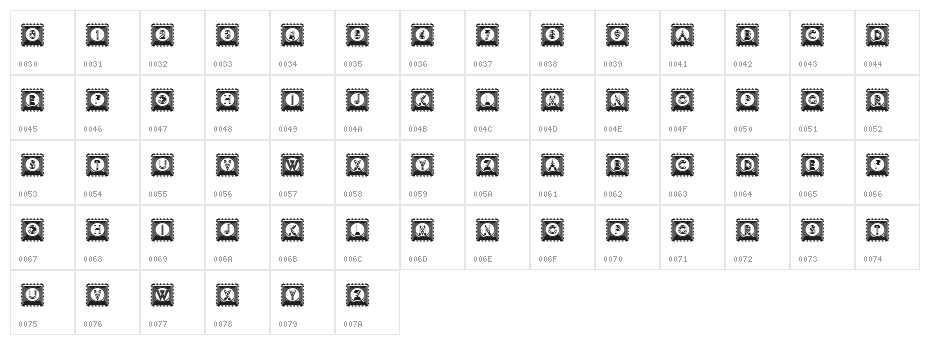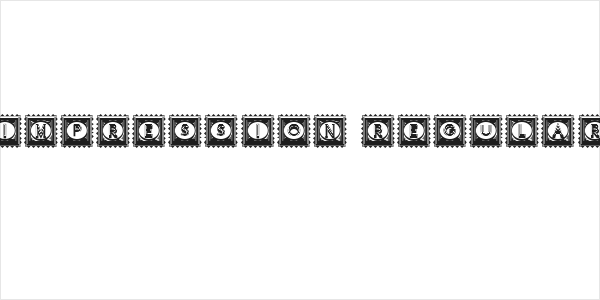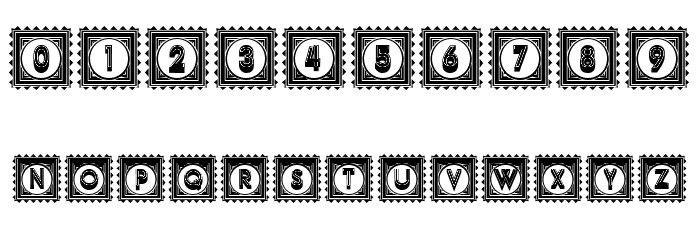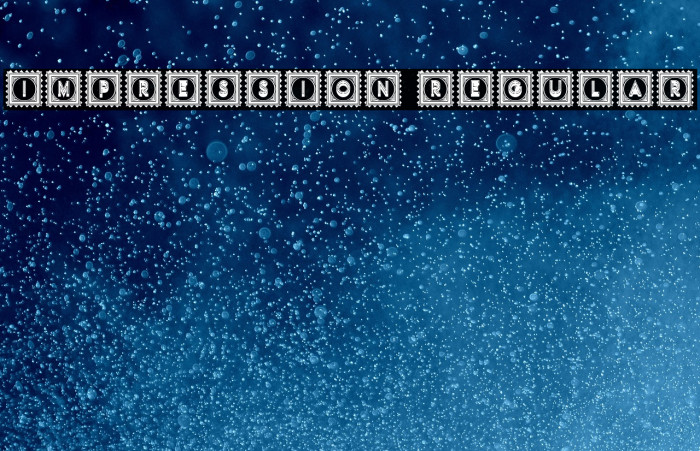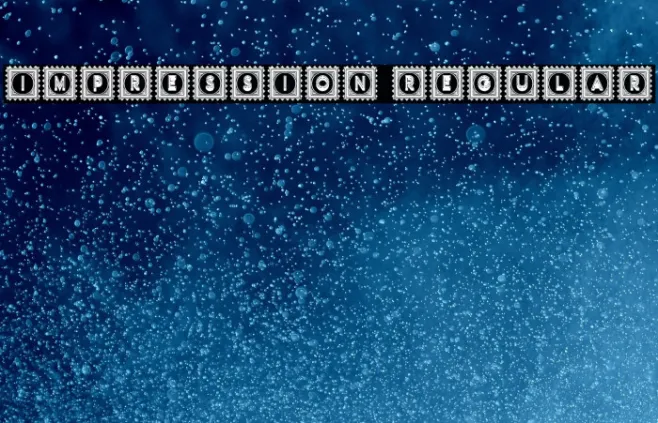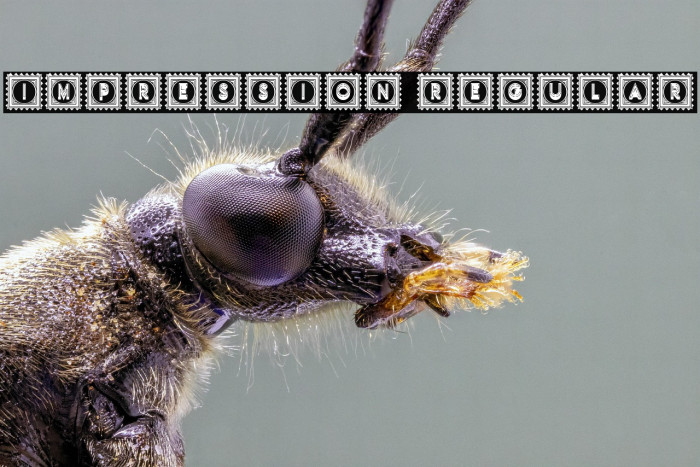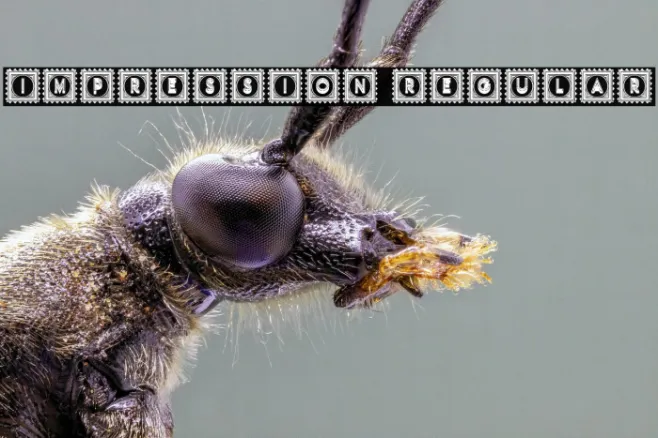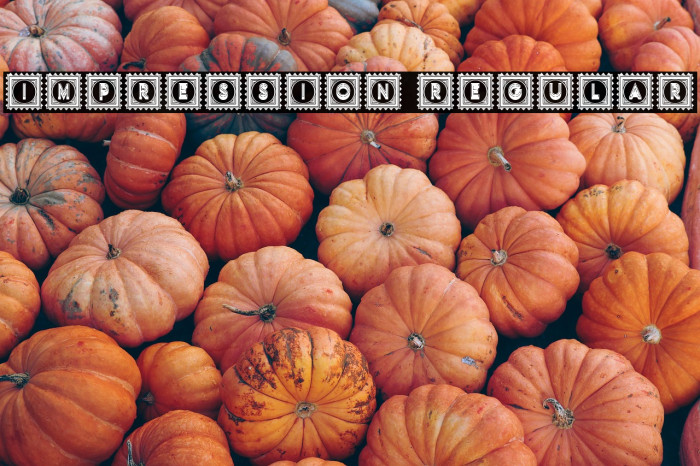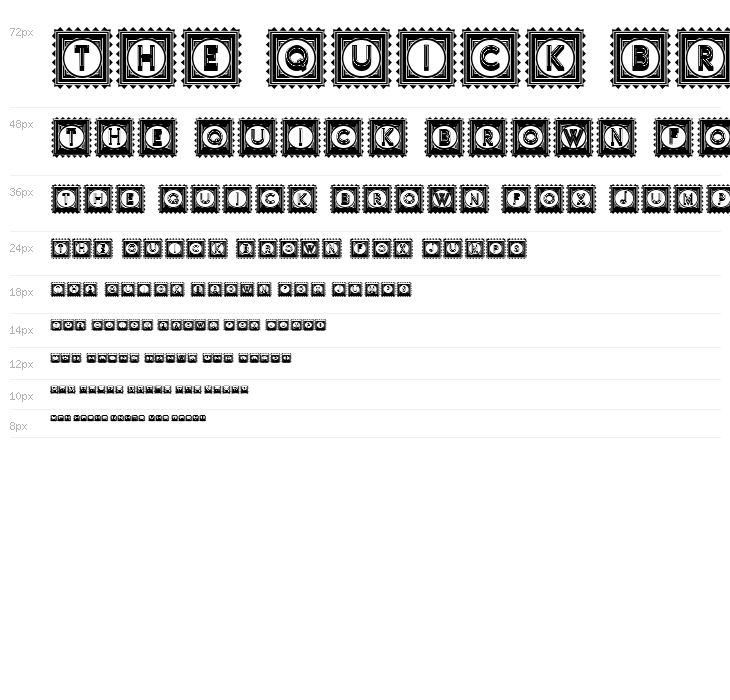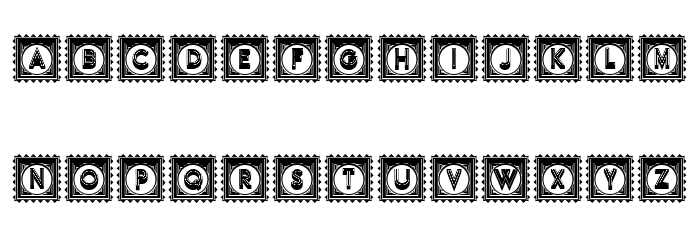
Impression Regular Font
Impression Regular Description
This font features a decorative style with each character enclosed in a square frame resembling a postage stamp. The letters are bold and have a playful, artistic flair, with intricate patterns surrounding them. The design is highly ornamental, making it stand out with its unique and creative presentation. The characters are evenly spaced within their frames, providing a consistent and structured appearance. This font is ideal for projects that require a touch of whimsy and creativity, such as invitations, posters, or branding materials that aim to capture attention with a distinctive look.
| Proposed Projects | Ideal for invitations, posters, and branding materials that require a whimsical and eye-catching design. |